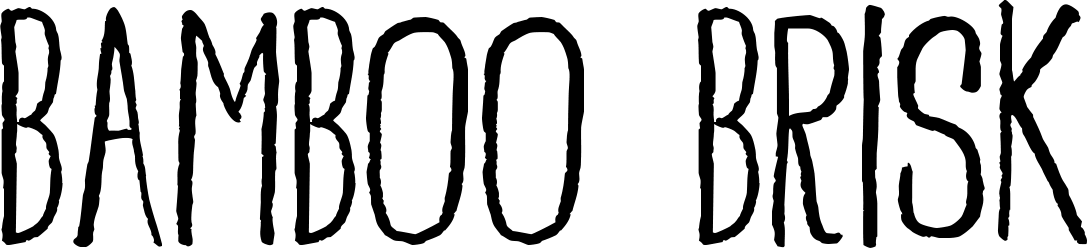
Bamboo Brisk Font
This post is in another script font called Bamboo Brisk. Most of the characters are designed like it is handwritten with a marker. It will give an informal and lovely look to your text. You can use it for children related promotions, cartoon and movie titles, advertisements, informal texts, and song titles. This font only has capital letters.
Actually made from bamboo pens!